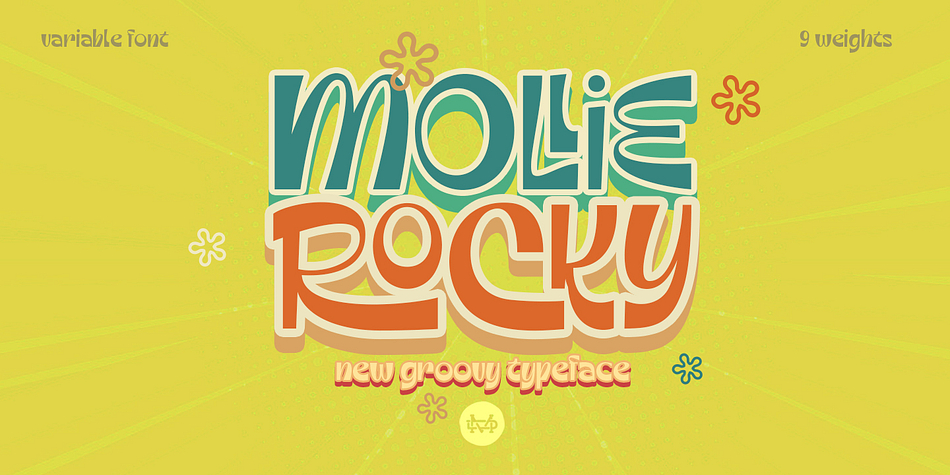
Mollie Rocky Light Italic
Designed by Suandana Ipandemade, Mollie Rocky is a display, hand display and novelty font family. This typeface has eighteen styles and was published by madeDeduk.
Mollie Rocky is a modern groovy family font that is retro typography designs and stylish. The thick and thin stems of the each letters makes a unique retro font.
- 9 Weight
- UPPERCASE & Lowercase
- Alternative & Ligatures